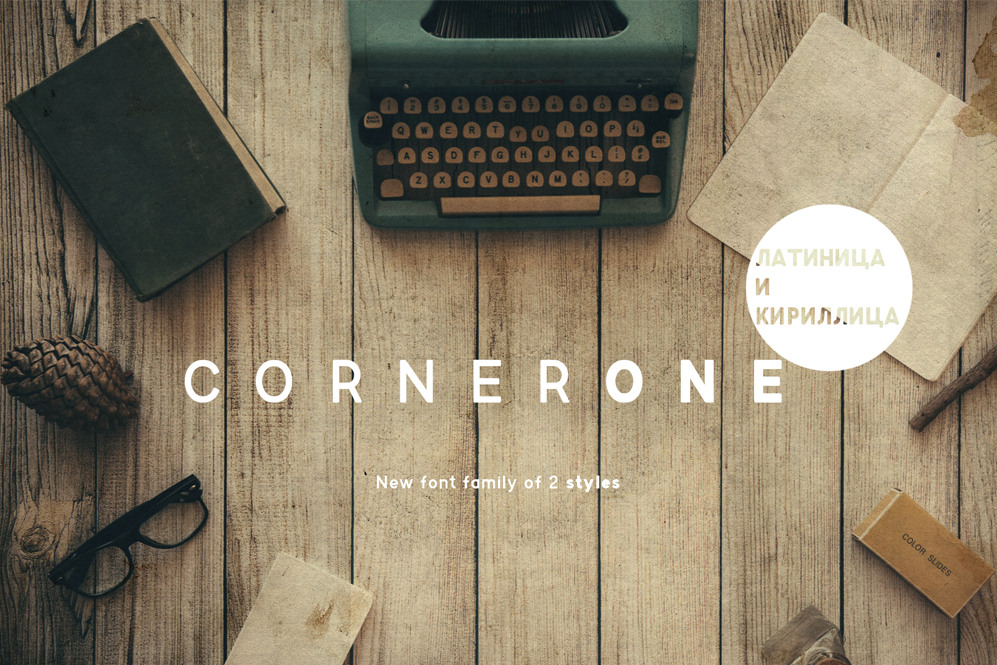
CornerOneTypeface
Simple, round the font that is perfect for vintage advertisements, absolutely any presentations, introductions. Clear, concise,  the best.
Available in 2 styles: Bold & Regular, and in 2 alphabets: Cyrillic & Latin.